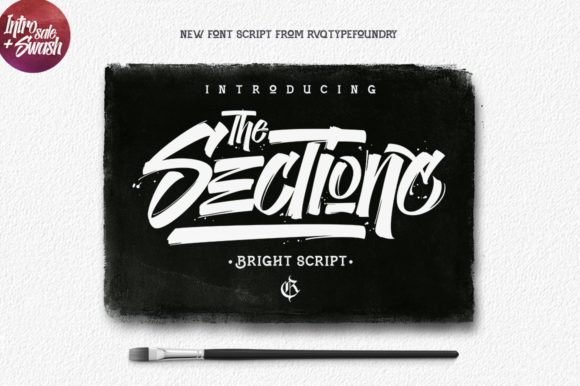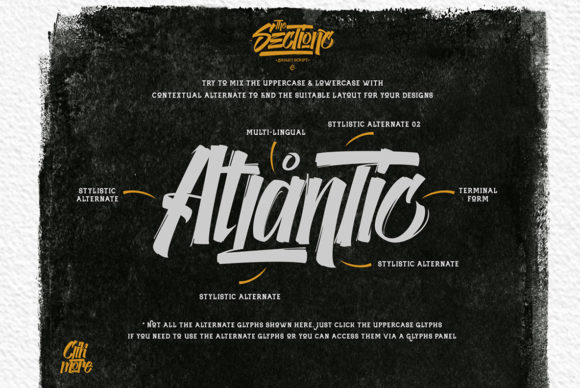
The Sectione Font
The Sectione is a cool, brushed display font. Inspired by the urban art, this font looks fierce and authentic. It will enhance the quality of each of your posters, flyers, or print.